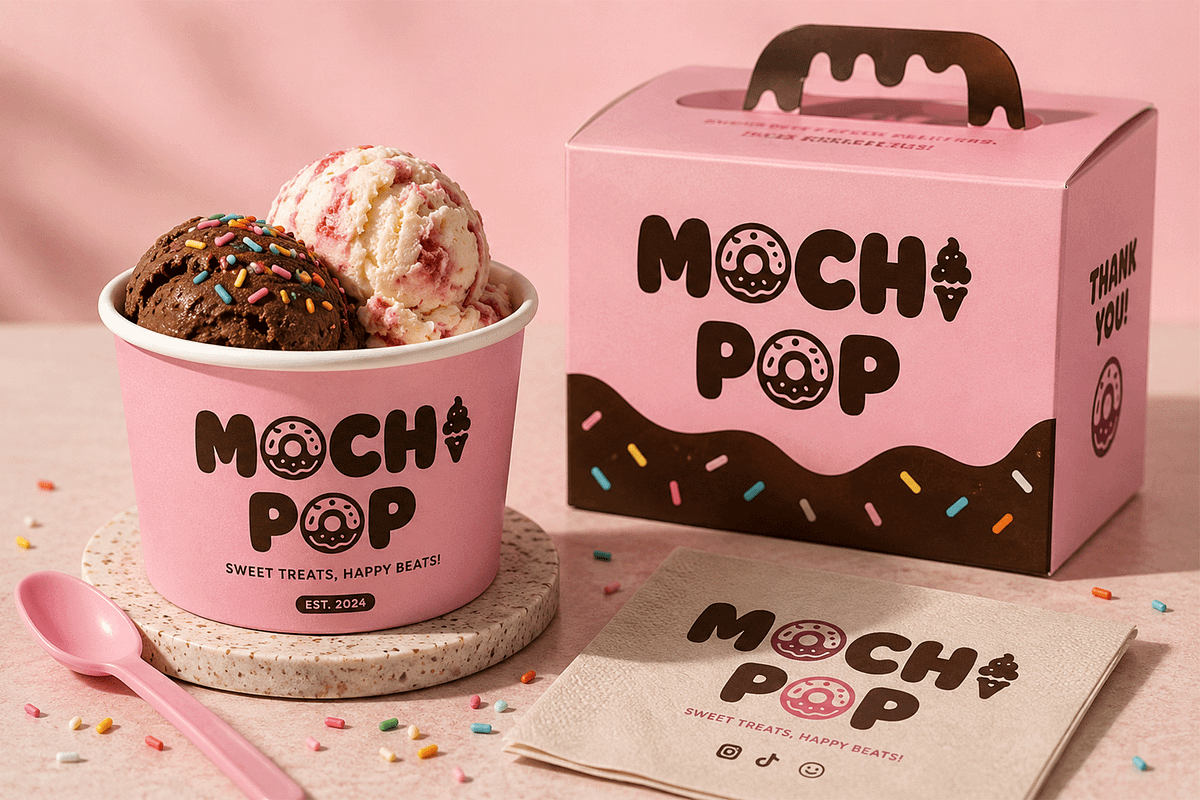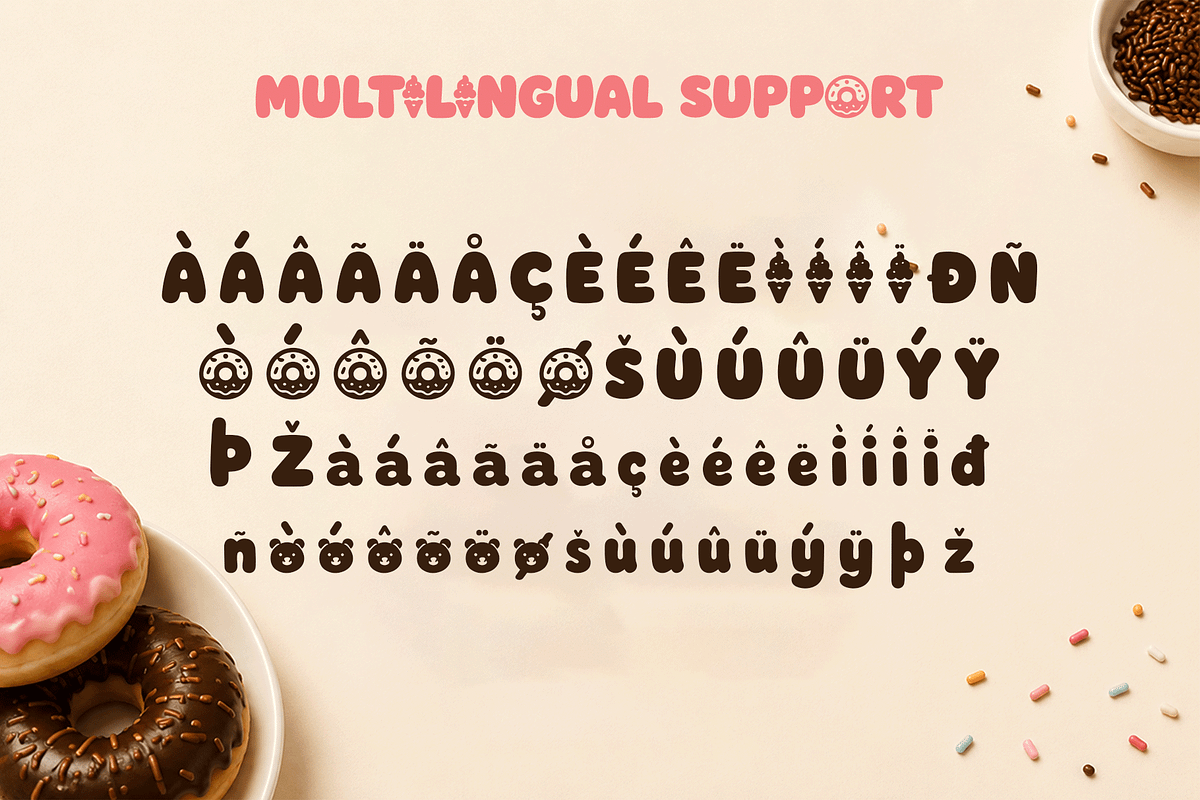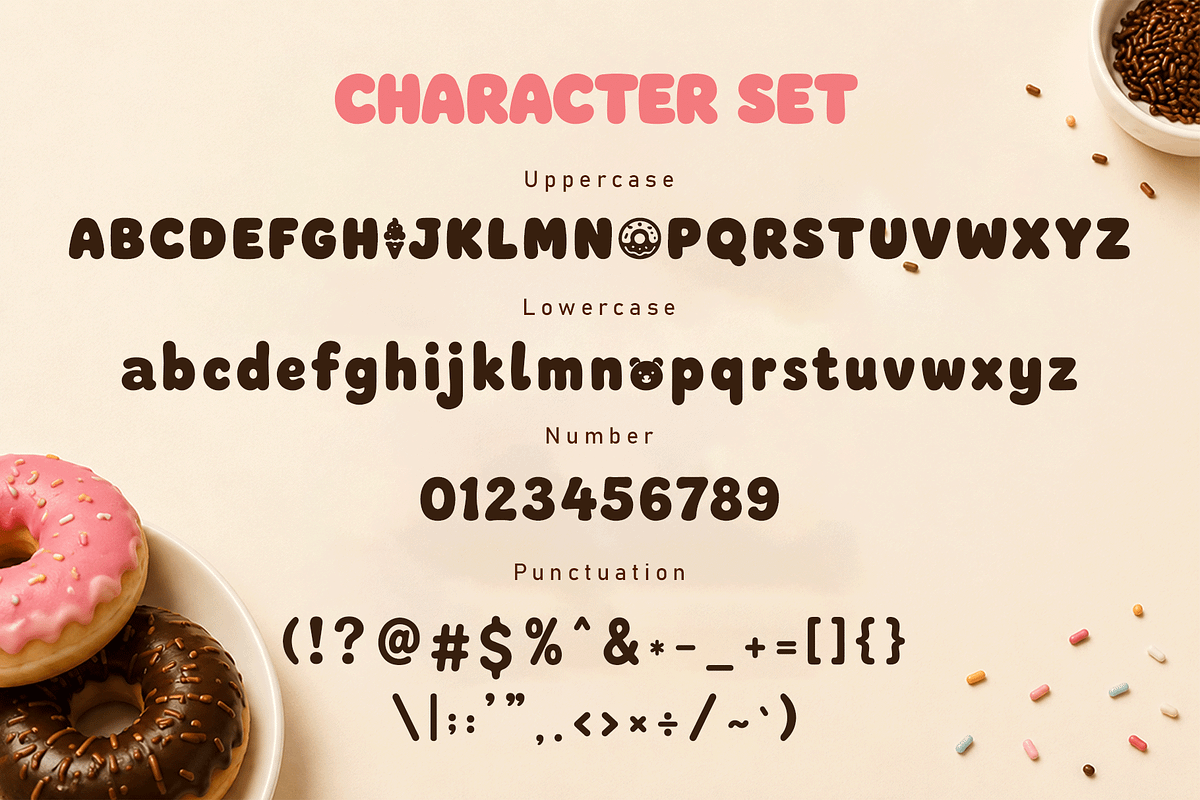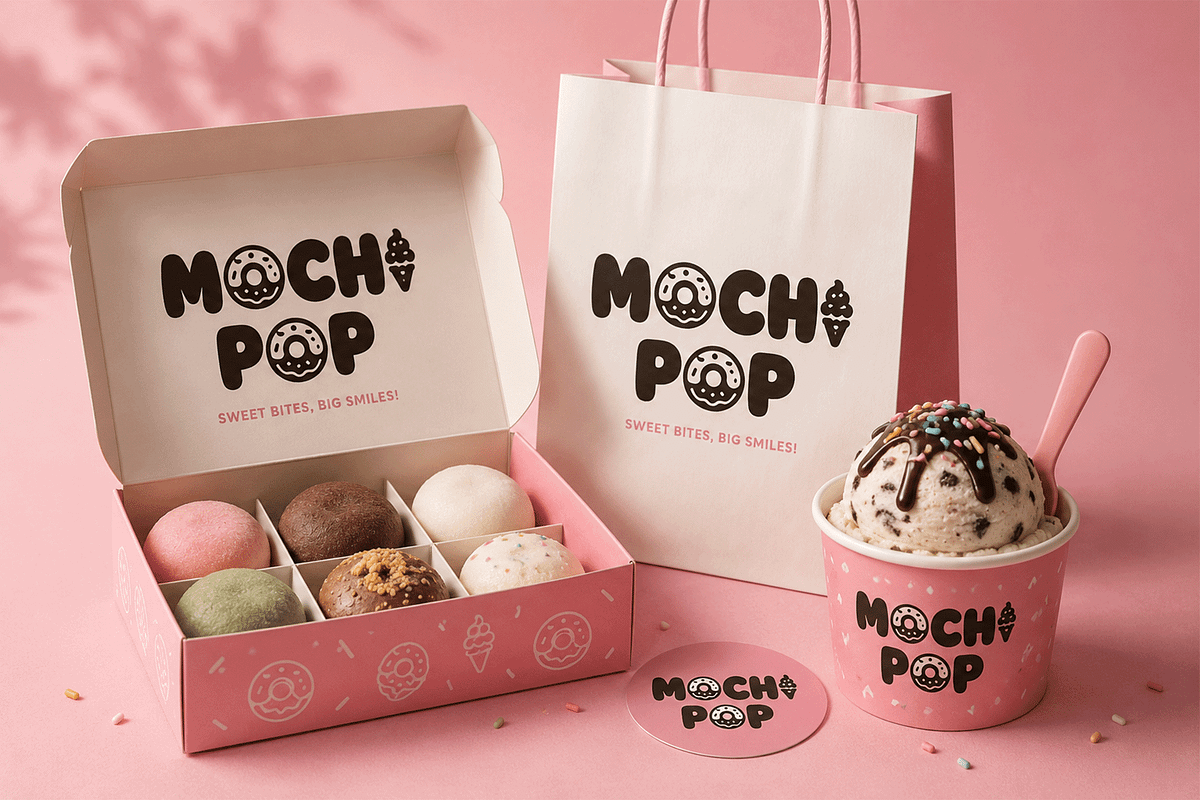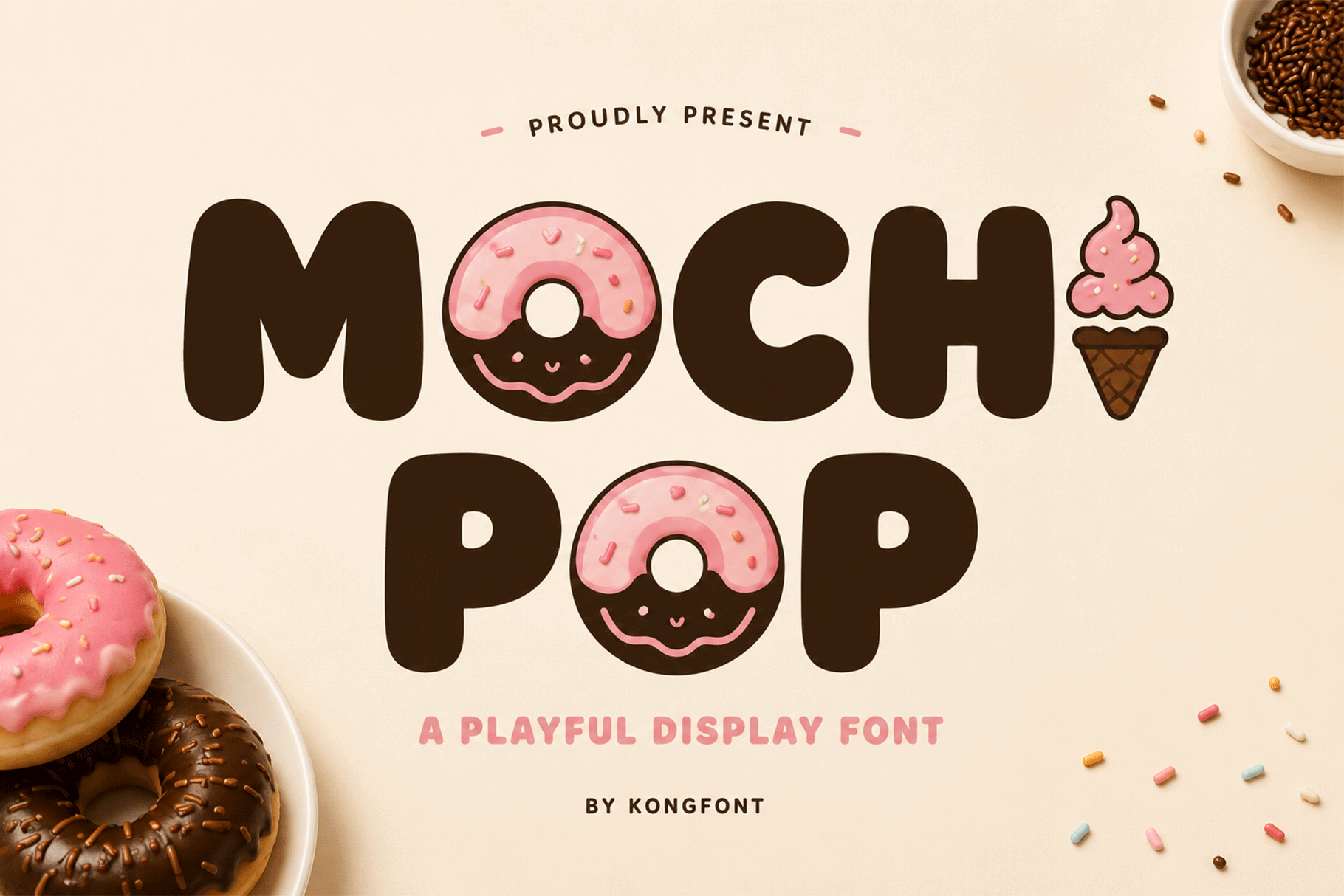
Mochi Pop - Sweet Display Font
Mochi Pop - Playful Sweet Display Font
Meet "Mochi Pop," a playful display font designed with chunky rounded shapes, soft curves, and an irresistibly cheerful personality. Inspired by sweet treats, colorful desserts, and cute modern branding, Mochi Pop gives every word a friendly, joyful, and memorable appearance.
Mochi Pop works especially well for food and beverage projects, kawaii inspired branding, sweet shops, birthday designs, toy packaging, lifestyle products, and colorful promotional campaigns. Its simple yet expressive shapes make it ideal for headlines, logos, and display typography that needs to feel fun and easy to recognize.